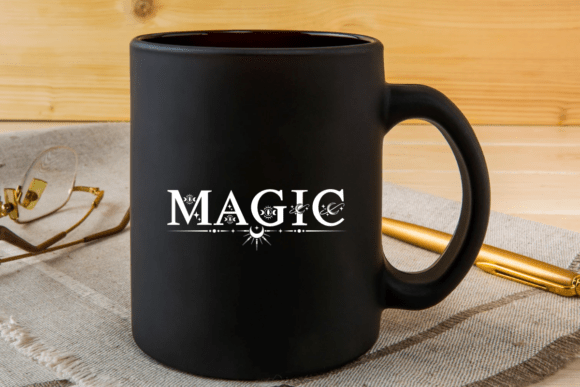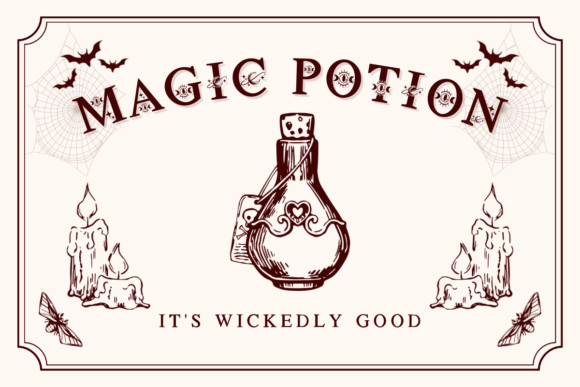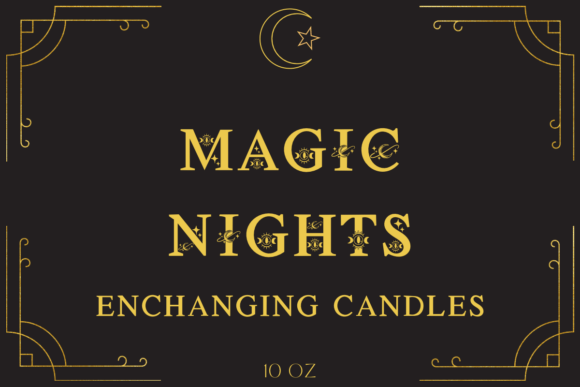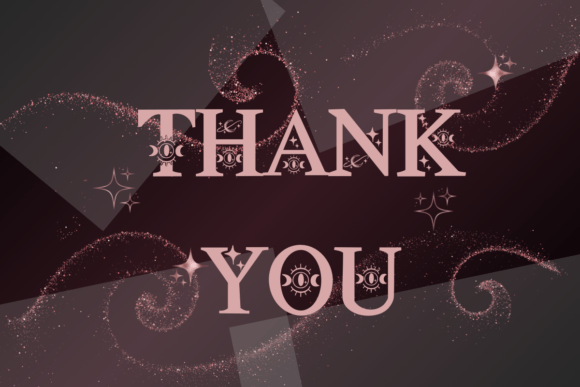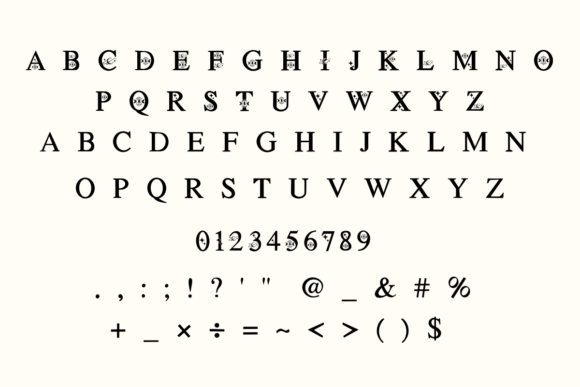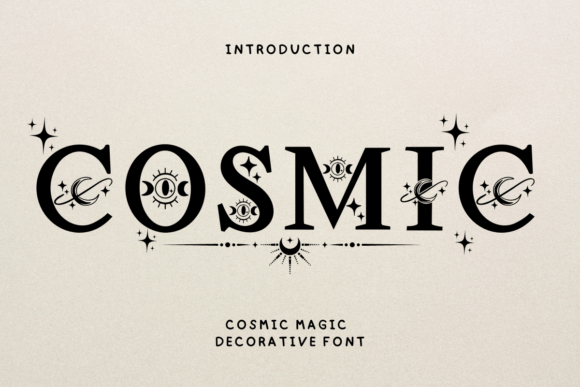
Unleash the Magic of Cosmic Magic Font: Elevate Your Designs with a Touch of Whimsy
Are you tired of using the same old fonts for your designs? Look no further than the Cosmic Magic Font, a decorative font that’s out of this world! With its unique flair and artistic twist, this font is perfect for adding a touch of magic to your creations. Whether you’re a designer, crafter, or simply a DIY enthusiast, Cosmic Magic Font is sure to inspire your next project.
A Font that’s Truly Out of this World
Cosmic Magic Font is a one-of-a-kind decorative font that’s designed to add a touch of whimsy to your designs. Its unique and artistic style makes it perfect for a wide range of applications, from note-taking and diary entries to greeting cards, banners, and web content. With Cosmic Magic Font, you can add a distinctive style to your designs that will set them apart from the rest.
As a designer or crafter, you’re always on the lookout for new and exciting ways to express your creativity. Cosmic Magic Font is the perfect tool to add to your arsenal. Its versatility and unique style make it ideal for a wide range of projects, including:
- Stationery: Add a touch of magic to your stationery with Cosmic Magic Font. Perfect for journals, planners, and notebooks.
- Social Media Posts: Stand out on social media with eye-catching graphics and posts featuring Cosmic Magic Font.
- Greeting Cards: Add a personal touch to your greeting cards with this unique and artistic font.
- Banners: Create eye-catching banners with Cosmic Magic Font that’s sure to grab attention.
- Web Content: Add a touch of whimsy to your web content with this decorative font.
- Mug and Shirt Designs: Take your mug and shirt designs to the next level with Cosmic Magic Font.
Why Choose Cosmic Magic Font?
So why choose Cosmic Magic Font over other decorative fonts? Here are just a few reasons:
- Unique Style: Cosmic Magic Font has a one-of-a-kind style that’s sure to set your designs apart.
- Versatility: This font is perfect for a wide range of applications, from stationery to web content.
- High-Quality: This font is high-quality and designed to look great on any device.
Tips for Using Cosmic Magic Font
Here are a few tips for using Cosmic Magic Font to get the most out of this amazing decorative font:
- Experiment with Different Sizes: Try out different sizes to see how Cosmic Magic Font looks in various contexts.
- Pair with Other Fonts: Pair Cosmic Magic Font with other fonts to create a unique and eye-catching combination.
- Use on Different Backgrounds: Try using Cosmic Magic Font on different backgrounds to see how it looks in various settings.
- Be Creative: Don’t be afraid to get creative and try out new and exciting things with Cosmic Magic Font!
In conclusion, Cosmic Magic Font is a decorative font that’s perfect for adding a touch of magic to your designs. With its unique style, versatility, and ease of use, this font is ideal for designers, crafters, and DIY enthusiasts alike. Whether you’re looking to create eye-catching stationery, social media posts, or web content, Cosmic Magic Font is the perfect choice. So why wait? Unleash the charm of Cosmic Magic Font today and take your designs to the next level!